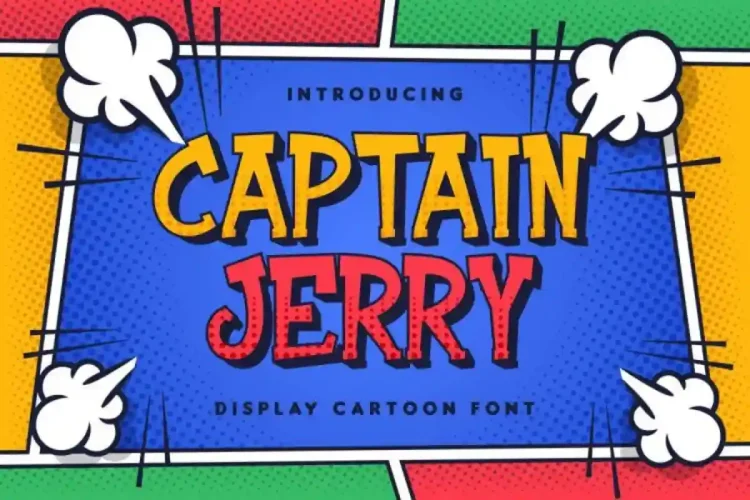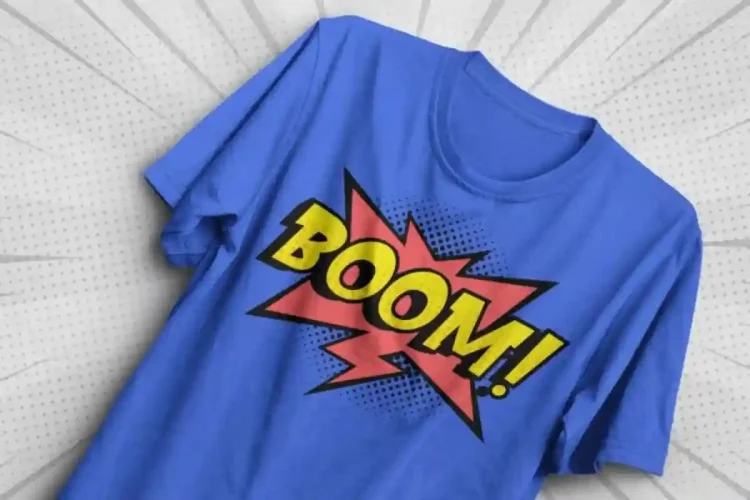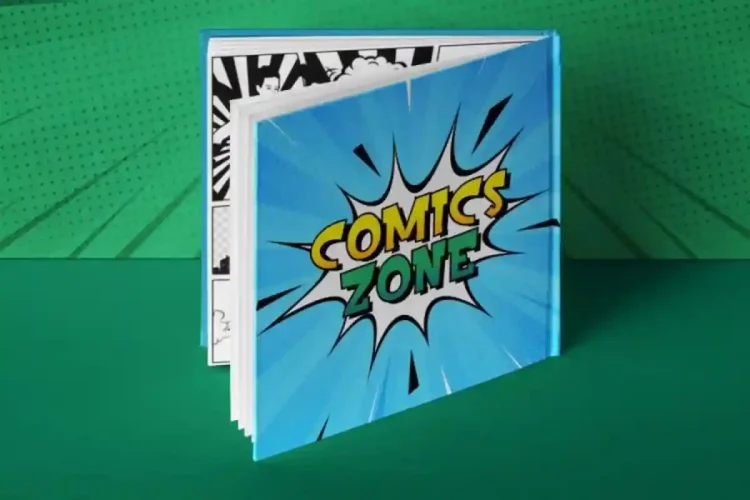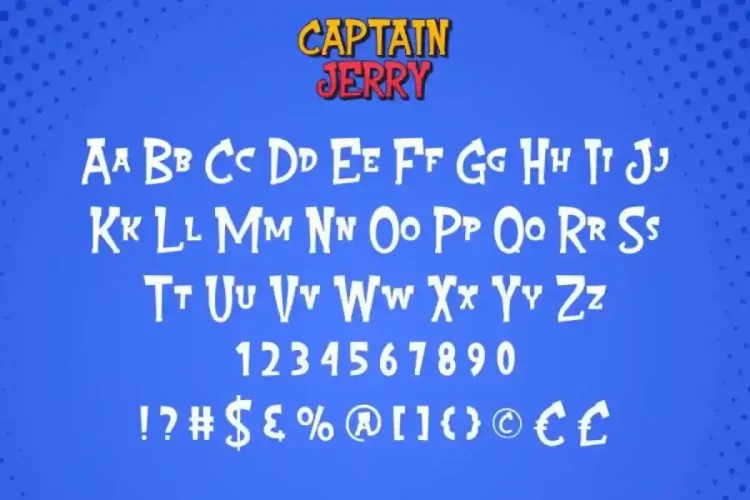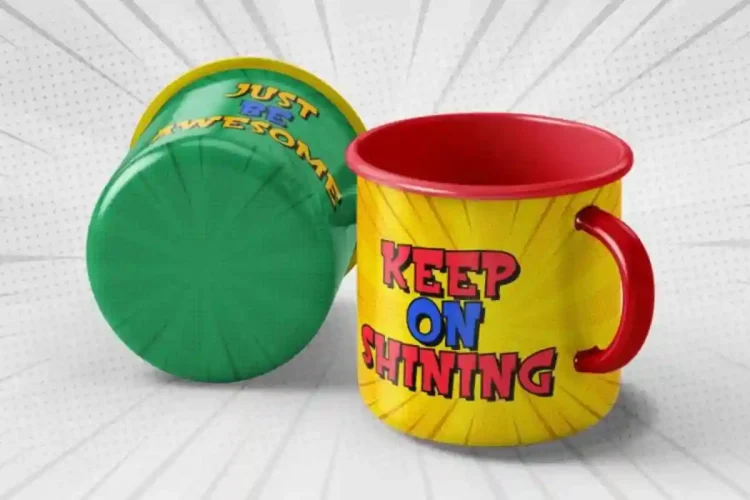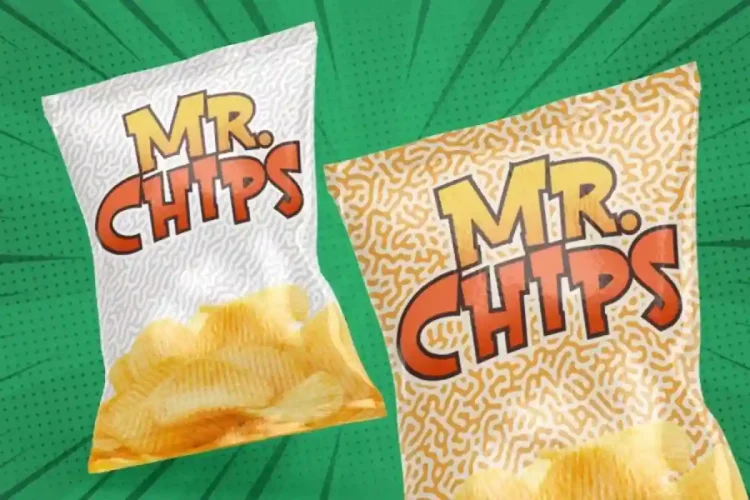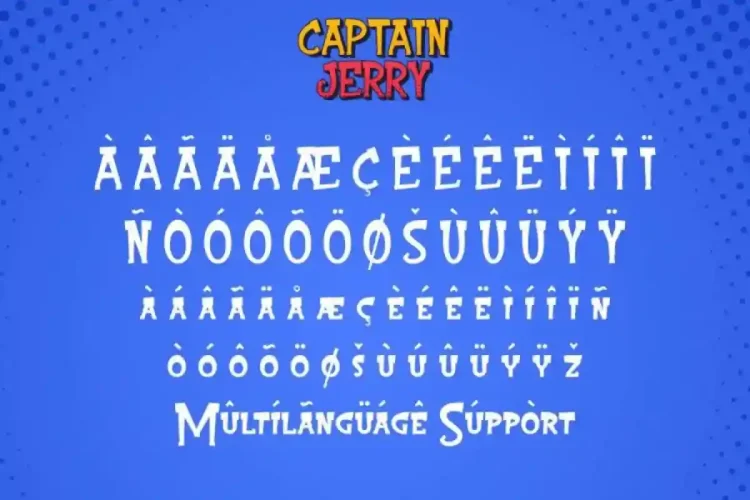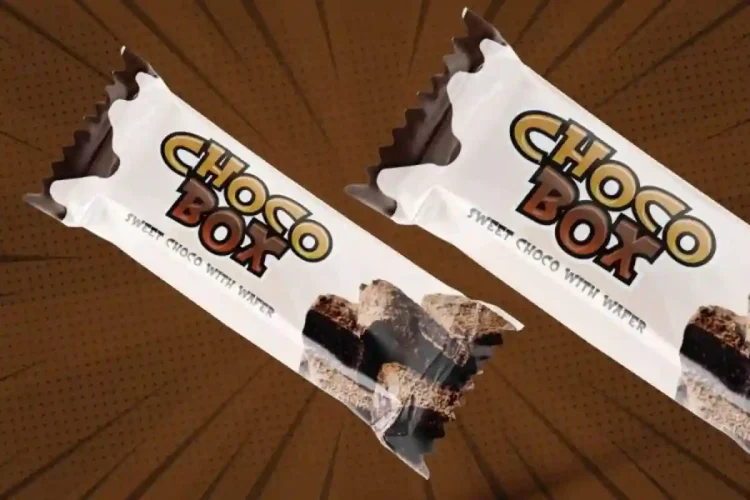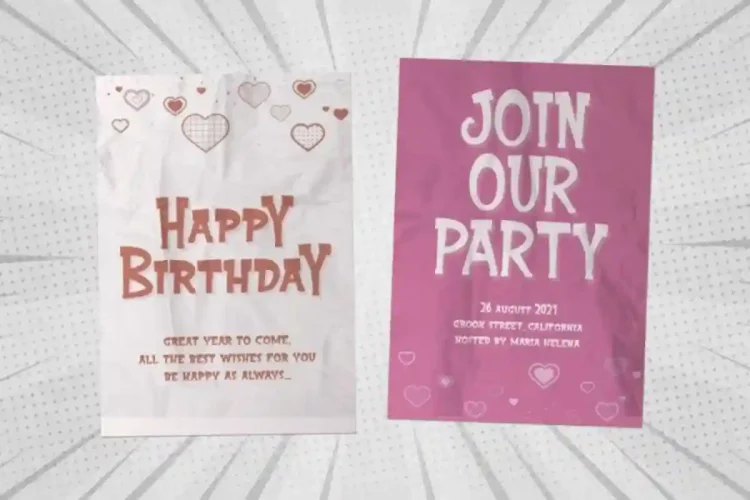
Captain Jerry Display Cartoon Font a bold comic sans display font inspired by the charm of cartoons, comic books, and heroic adventures. Delivers a unique comic style that feels modern, fun, and full of personality. We made this font fun and modern to fit as many ideas as possible.
Captain Jerry Dislay Cartoon Font is a comic sans display family font. It has a unique shape and effect with irregular thickness of the letters makes this unique. The font is suitable for brandings, banners, headlines, clothing, stickers, wall art writing etc.
Captain Jerry Display Cartoon Fontcomplete with uppercase and lowercase letters, numbers, symbols, and full multilingual support. It’s fully compatible with Windows and Mac, tested to work smoothly in Adobe Illustrator, Photoshop, InDesign, Microsoft Word, and more.